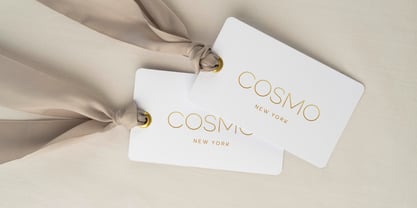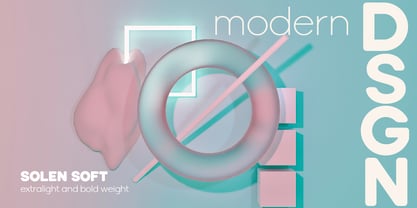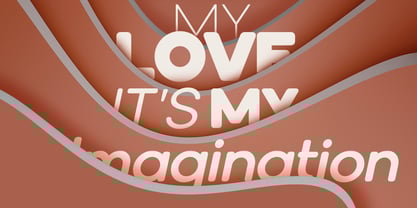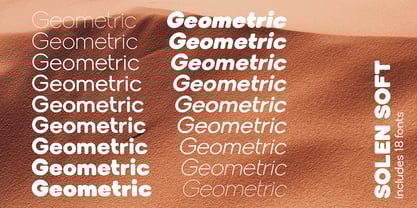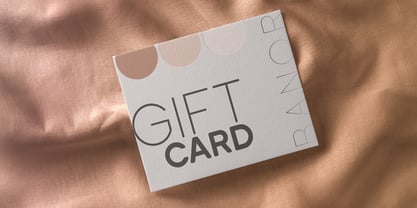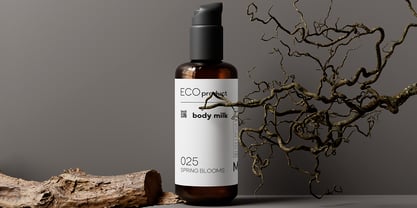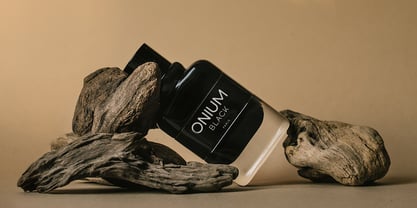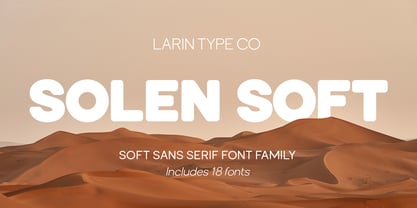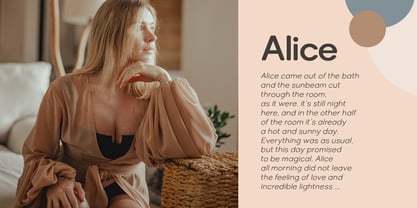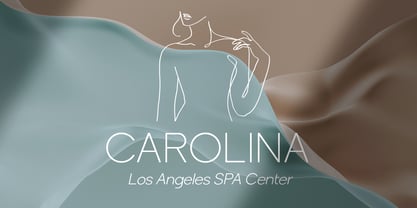
Solen Soft
by Larin Type Co
The Solen Soft Font Family was designed by Pavel Larin and published by Larin Type Co. Solen Soft contains 18 styles and family package options. More about this family
Solen Soft this is a modern geometric sans-serif font that includes nine weights from thin to black and nine weights in Italic style.
This multi-purpose font captures a huge range for the design and creation of your project.
Solen family will perfectly cope with a variety of tasks and he will always look stylish and modern. With it, you can create logos, labels, use in advertising, packaging, branding, book covers and magazines, cosmetics, banners, posters, headings, descriptions and much more. This font is easy to use has OpenType features.